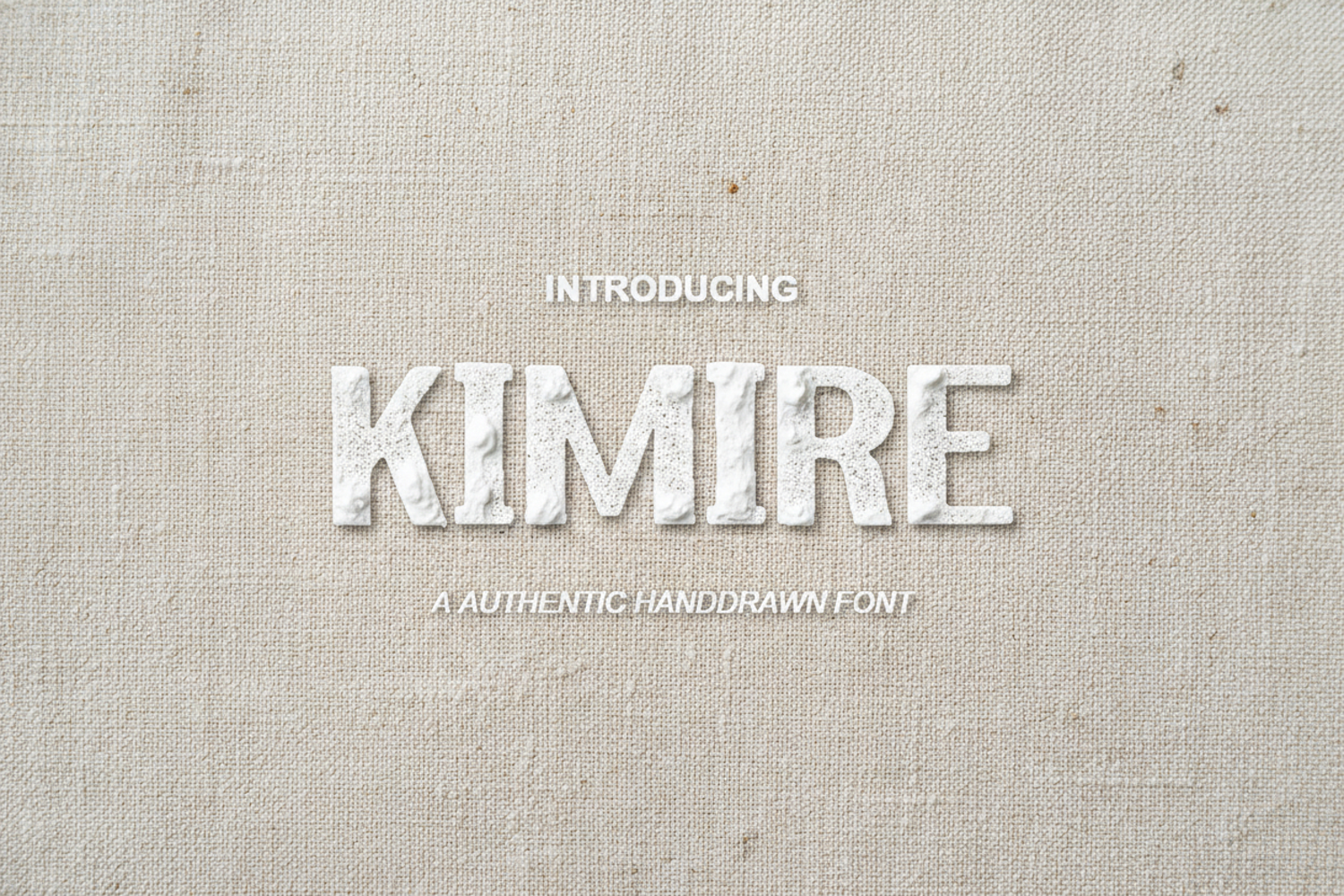
Kimire - Modern Chic Serif Font
Kimire
Kimire is a premium serif typeface that seamlessly blends timeless elegance with a modern aesthetic. Designed for creators who demand sophistication, this font offers clean and refined character shapes that make every word stand out. Whether you are working on a high-end fashion magazine or a minimalist corporate identity, Kimire provides the versatility and professional polish needed to elevate your creative vision.
- Luxury Branding and Identity: Create a memorable and prestigious brand presence.
- Wedding Stationery: Add a touch of class to invitations, menus, and place cards.
- Editorial Design: Perfect for headlines and body text in digital and print publications.
- Logo Design: Craft unique wordmarks that resonate with quality.
- Social Media Graphics: Enhance your visual storytelling with refined and legible typography.